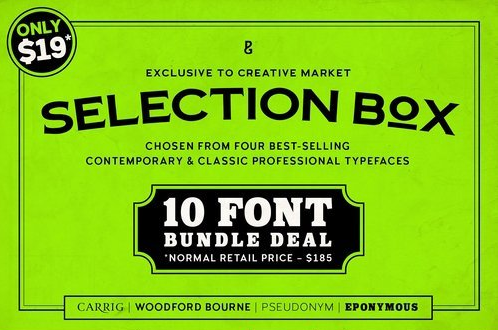
CM – Selection Box – 10 Font Bundle 2182522
A Classic Antiqua Serif Typeface, Carrig is a hugely popular face with 400+ glyphs. The two styles included here are ideal for titling and text applications.
A Vintage Grotesque Sans Serif Typeface, Woodford Bourne has 500+ glyphs and is ideally suited for headlines, branding and logo designs. Its alternate character set effectively makes this “two fonts in one”.
A Low-Contrast, Subtly-Flared Serif Typeface, Pseudonym has a number of distinctive ligatures, catchwords and alternates among its 600+ glyphs. These features make this popular typeface ideal for titling, branding and logo designs.
An Egyptian Slab Serif Typeface, Eponymous was created to make big, stand-out headlines. The fonts have 600+ glyphs and include features such as small caps, alternates and ligatures. Perfect for branding, logo designs and titling.
Black Swan features Carrig Basic Regular.
Baby Driver features Eponymous Black Italic and Woodford Bourne Light, SemiBold & Black.
The Thing features Eponymous Black and Woodford Bourne SemiBold & Black.
V for Vendetta features Pseudonym Wide Light & Wide Bold and Carrig Basic Regular & Italic.
Moon features Woodford Bourne Light & SemiBold and Pseudonym Wide Light.